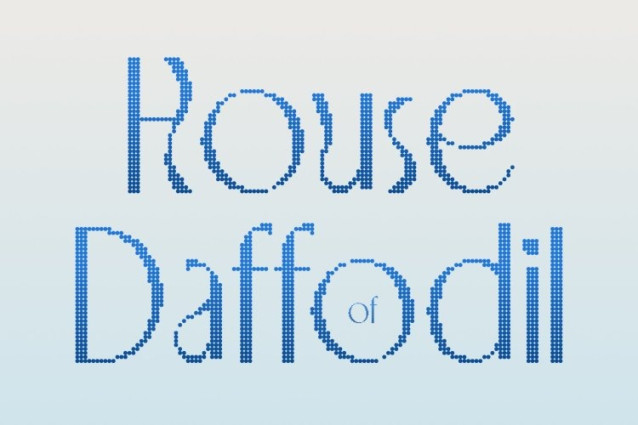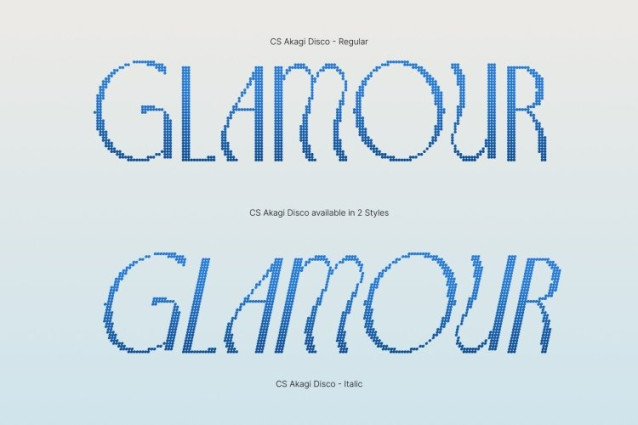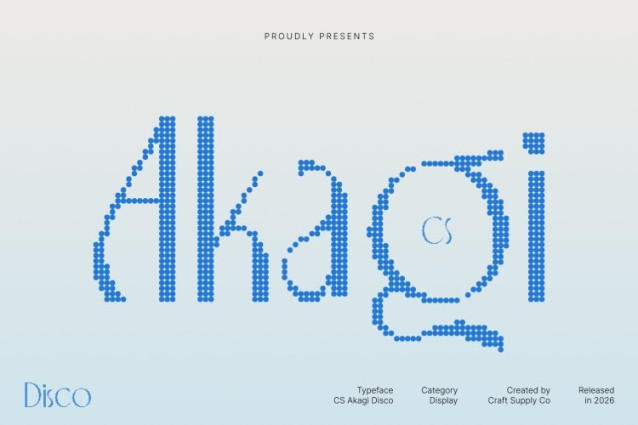
CS Akagi Disco Font
CS Akagi Disco Font This is an elegant sans serif font defined by refined curves and graceful movement, inspired by the organic beauty of Art Nouveau and elevated with subtle disco-era glamour. Its flowing letterforms blend fluid motion with clean structure, creating a typeface that feels artistic, contemporary, and softly radiant like elegance in motion under ambient lights.
Organic Curves with Glamorous Rhythm
Smooth, expressive curves give this font a natural visual rhythm, while gentle quirks add personality and charm. These details introduce a sense of movement and celebration without sacrificing clarity, resulting in typography that feels lively yet refined. The balance between organic flow and controlled geometry gives a distinctive, high-end presence.
Timeless Design with Modern Nightlife Nuance
Blending classic sensibility with modern structure, feels timeless while embracing contemporary style. Its clean sans serif foundation ensures readability, while artistic influences and disco-inspired energy add warmth, confidence, and sophistication perfect for designs that want elegance with a subtle festive glow.
Perfect for Editorial, Fashion, and Luxury Branding
Designed for premium creative projects, excels in editorial layouts, book design, fashion branding, packaging, and upscale visual identities. Its elegant flow enhances long-form reading while delivering stylish impact in headlines, bringing refined Art Nouveau beauty into modern, glamorous design contexts.